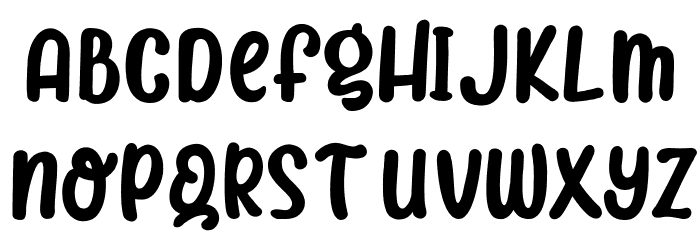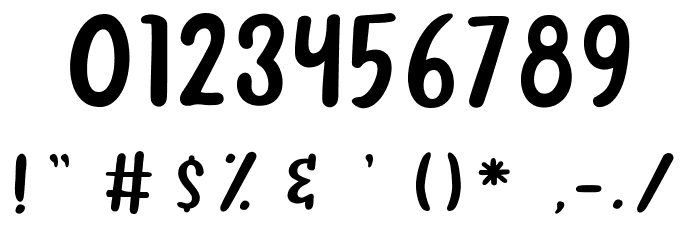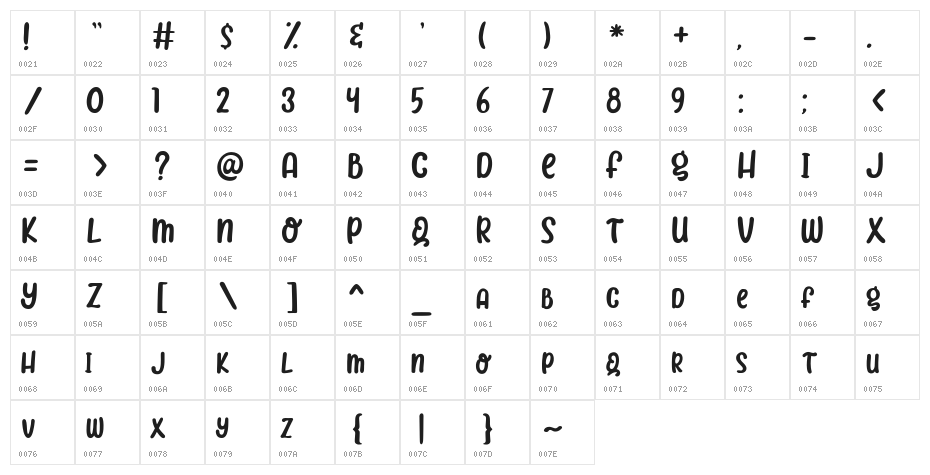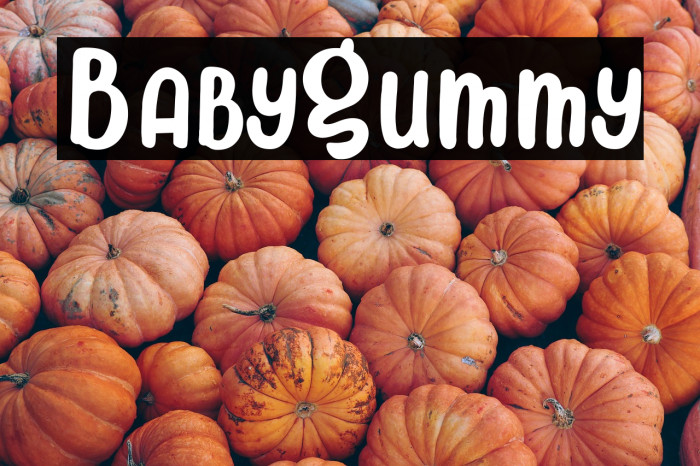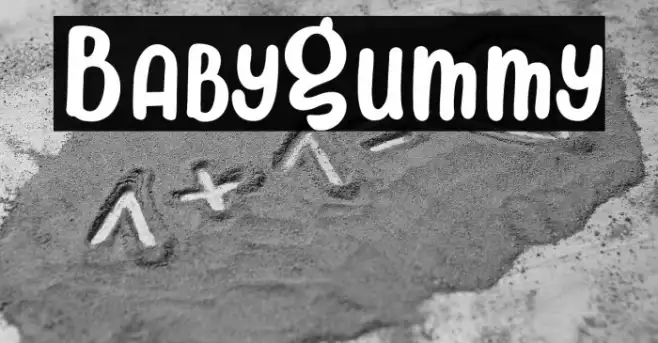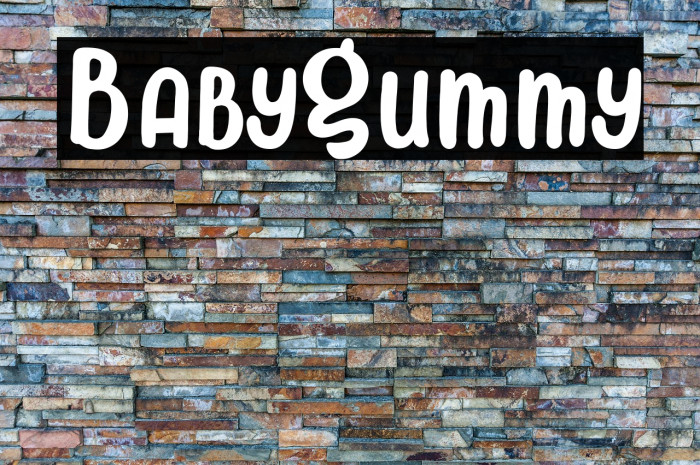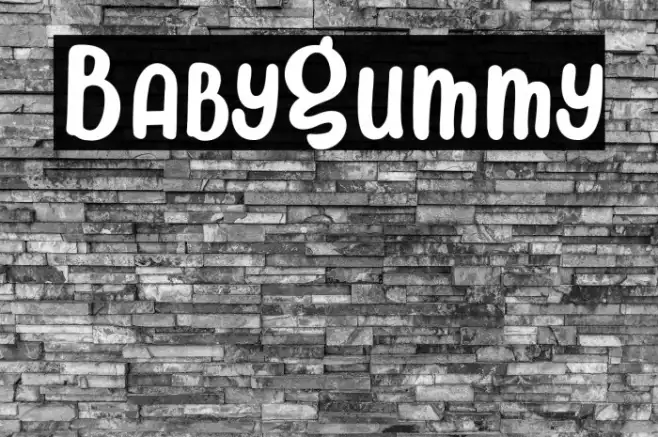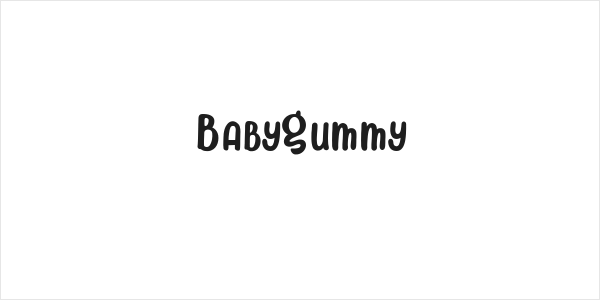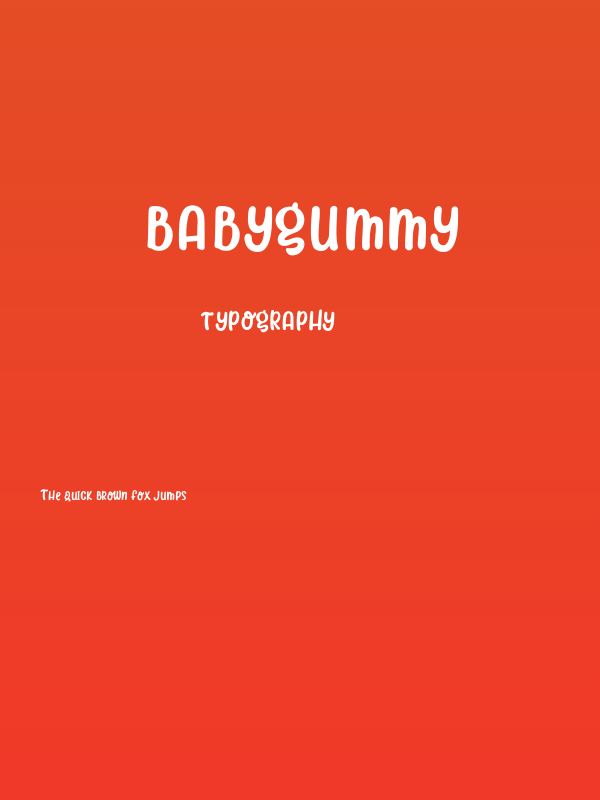
BabyGummy Font
This playful and whimsical font features rounded, bubbly characters that convey a sense of fun and lightheartedness. The letters have a consistent stroke width, giving them a uniform appearance, while the rounded edges add a soft, approachable feel. The font includes both uppercase and lowercase letters, as well as numbers and a variety of special characters. Its design is reminiscent of hand-drawn lettering, making it ideal for projects that require a personal touch. The overall style is casual and friendly, perfect for children's products, playful branding, or any project that aims to evoke joy and creativity.
A playful, rounded font with a whimsical, hand-drawn style.
- Font: BabyGummy
- Proposed Projects: Ideal for children's books, playful branding, greeting cards, and creative projects.
- Overall Style: Playful